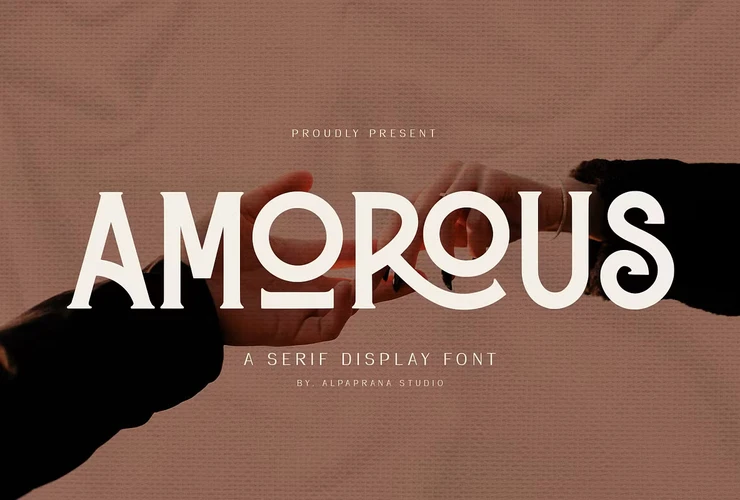
Amorous: A Modern Serif Font for Elegant Designs
Amorous by Alpaprana is a sophisticated serif font that combines elegance with contemporary aesthetics. With its refined curves and stylish letterforms, Amorous is
the perfect choice for designers who need a versatile font that effortlessly adapts to various design projects. Whether you’re working on branding, logos, editorial layouts, or special event invitations, Amorous adds a touch of luxury and modernity to every creation.
Key Features of Amorous
Elegant and Modern Appeal: Amorous strikes the right balance between elegance and modernity, making it ideal for high-end branding, logo design, and more. Its sleek serifs and clean lines give it a timeless quality.
Versatile Application: This font is perfect for a wide range of design projects, from posters, magazine covers, and packaging to book covers, photography, and even t-shirt designs. It ensures your work stands out with a sophisticated flair.
Comprehensive Character Set: Amorous offers a complete set of uppercase and lowercase letters, numerals, punctuation, accents for multilingual support, and various ligatures and stylistic alternates, giving designers ample creative freedom.
Why Choose Amorous?
For designers aiming to elevate their branding and visual projects, Amorous provides the ideal blend of grace and modernity. Its polished serif design exudes sophistication, making it suitable for both professional and creative endeavors. Whether you’re crafting a luxury logo or designing event invitations, Amorous adds the perfect touch of elegance and style.